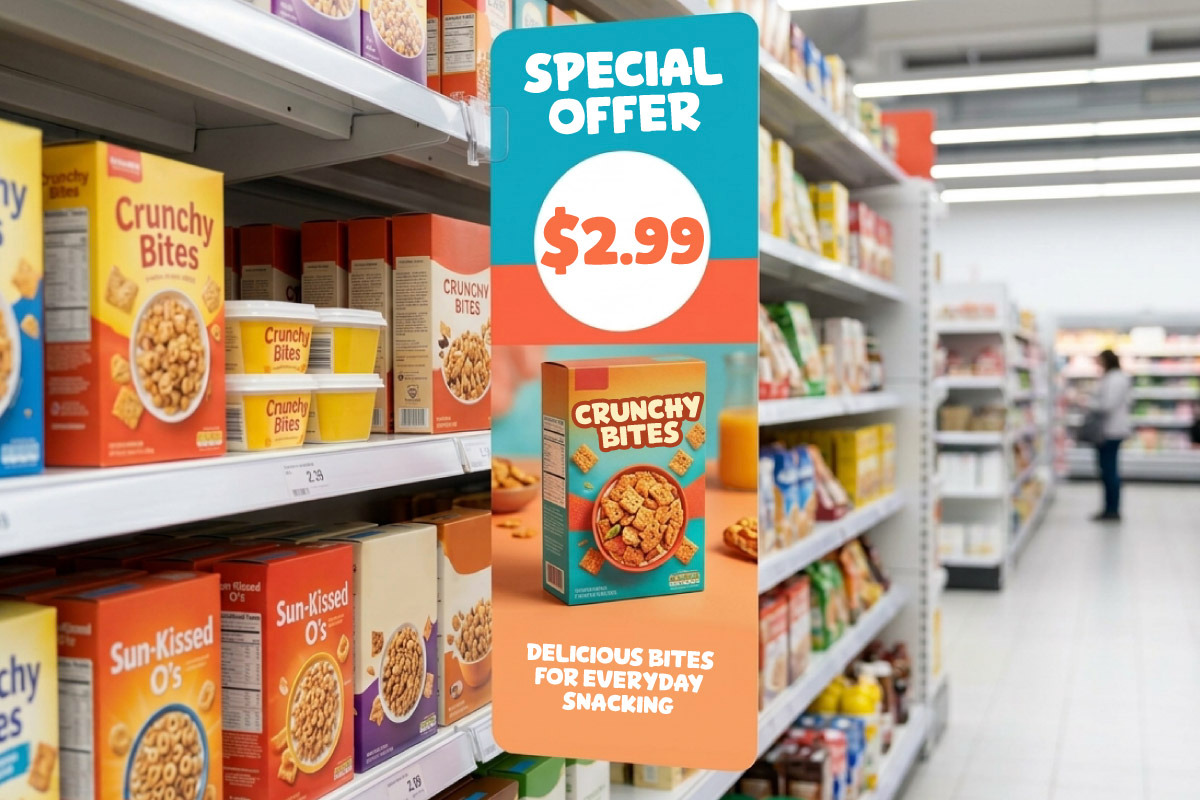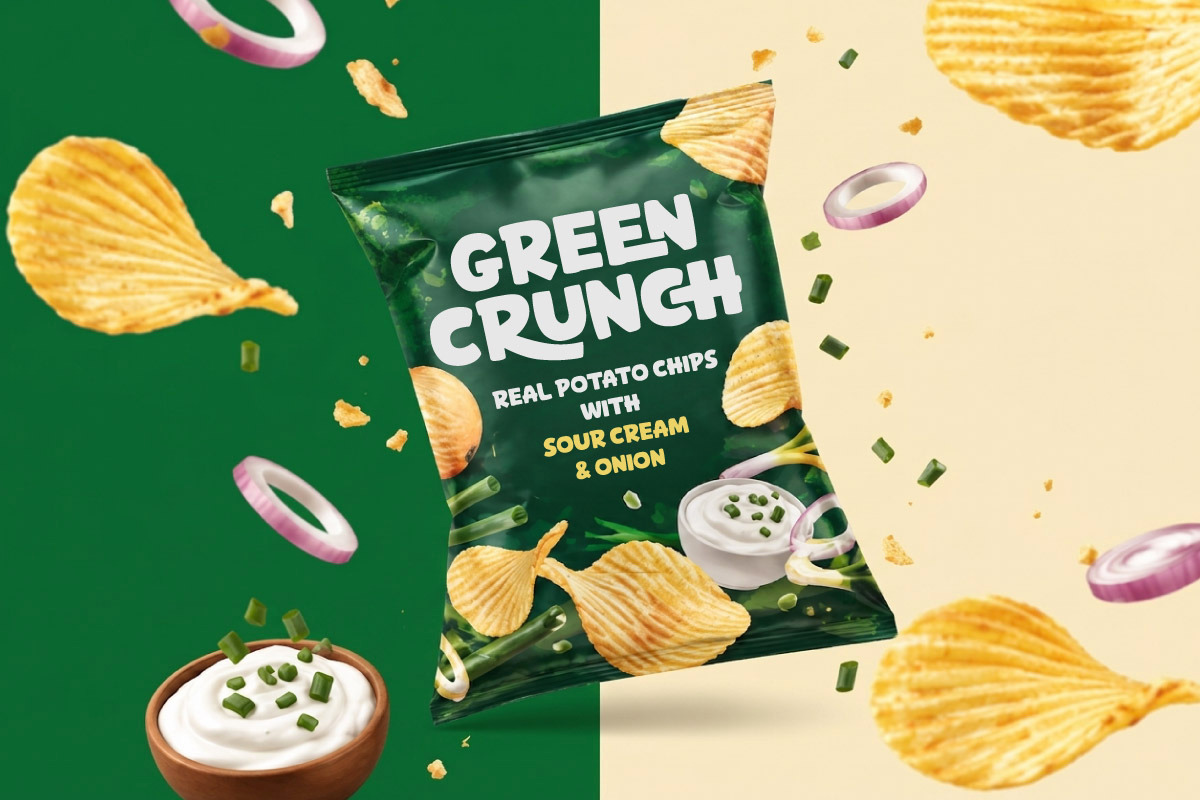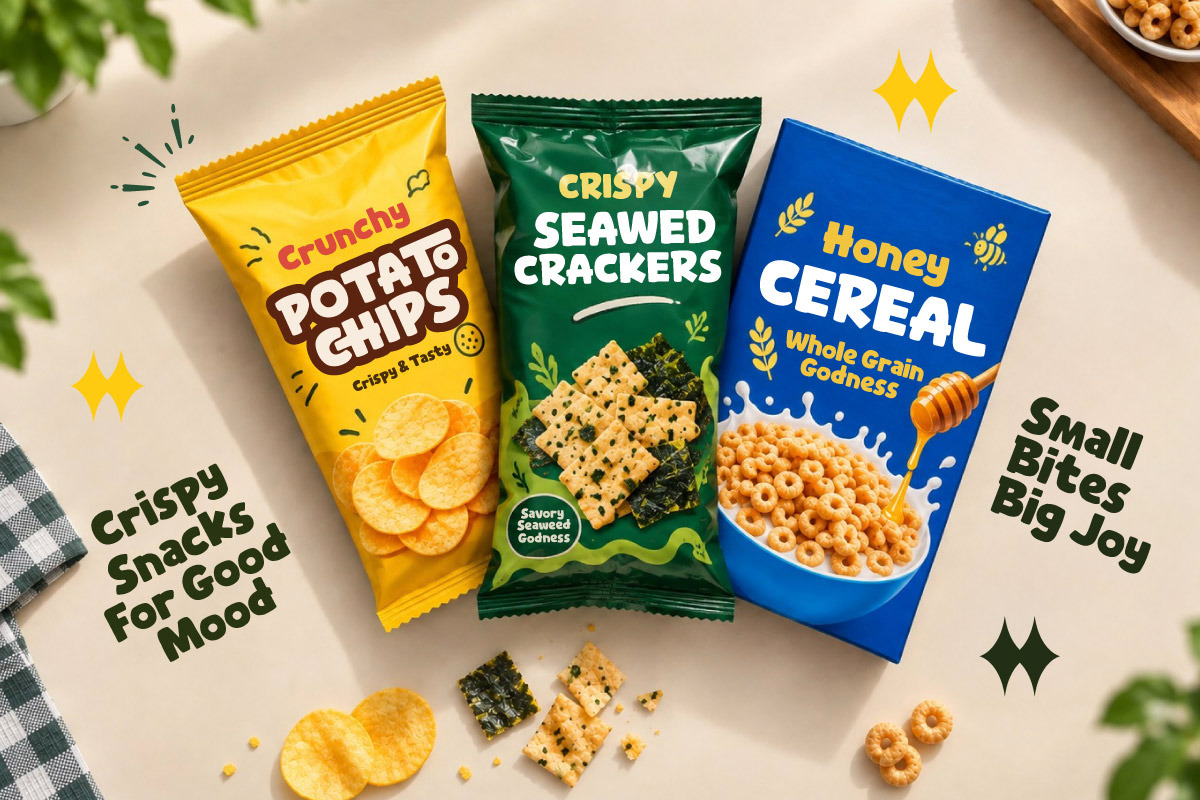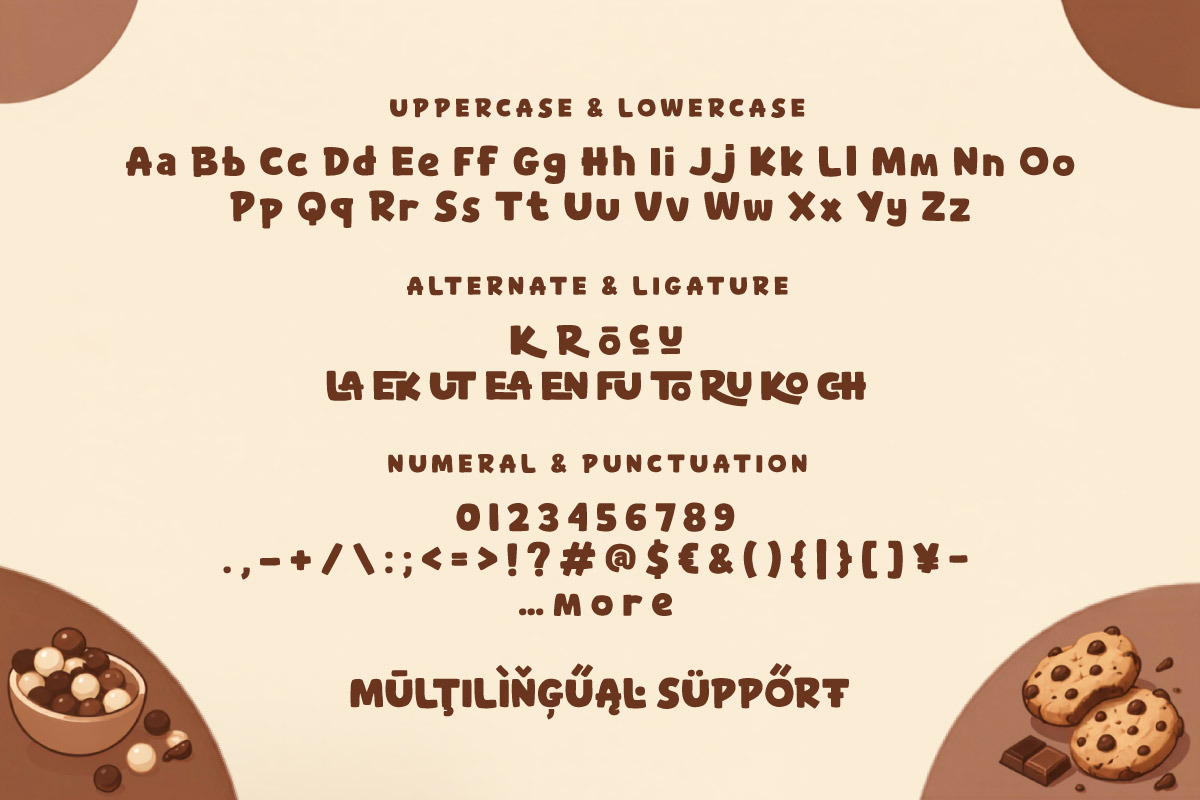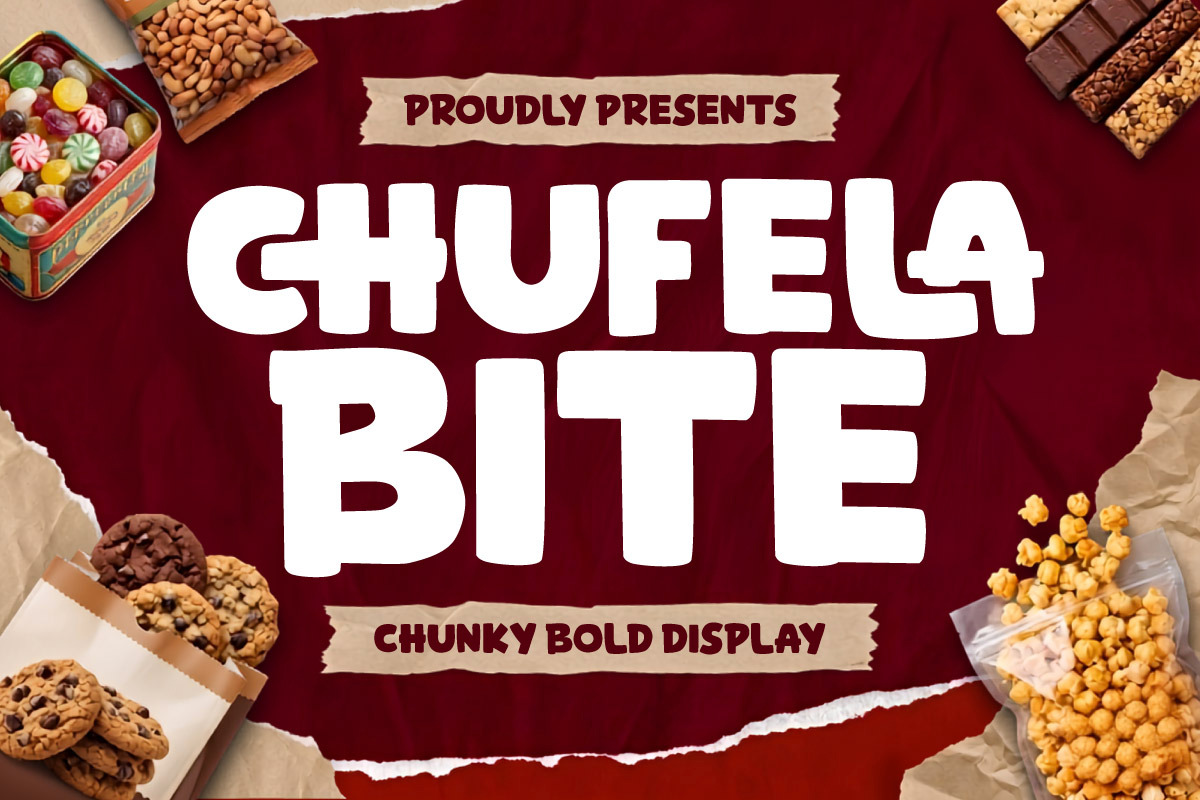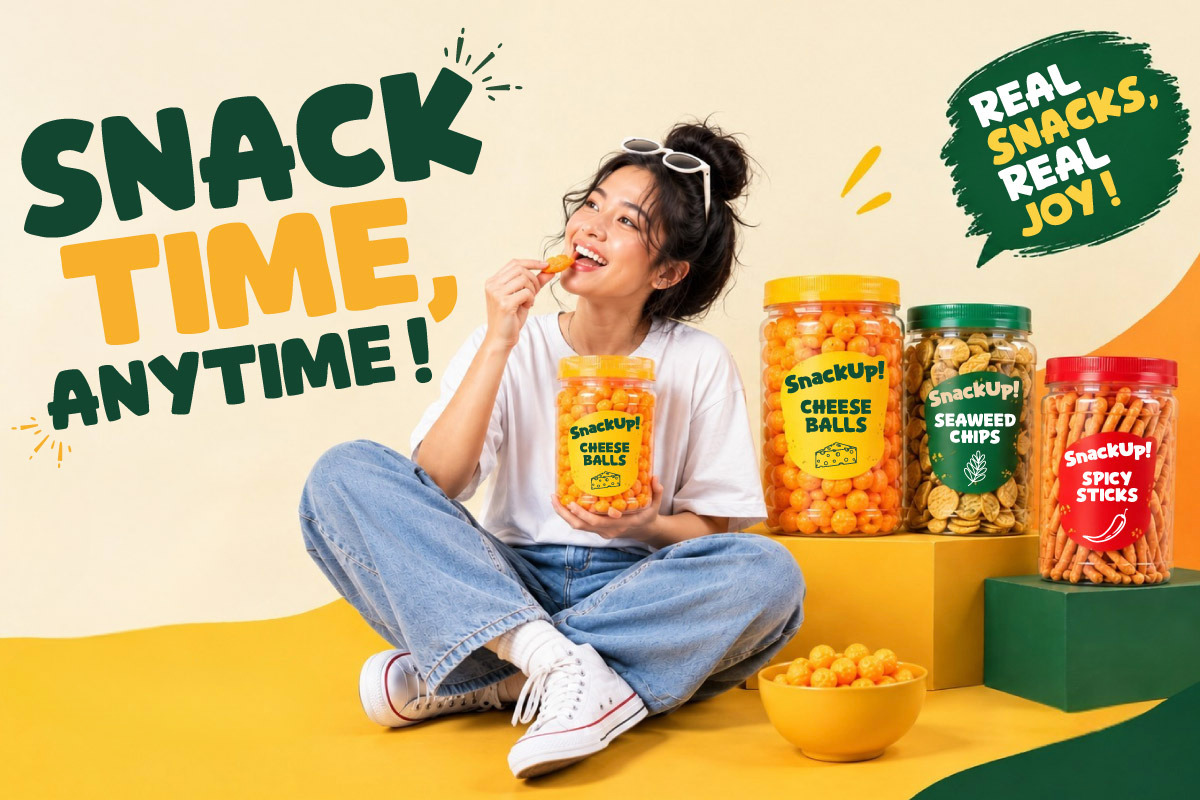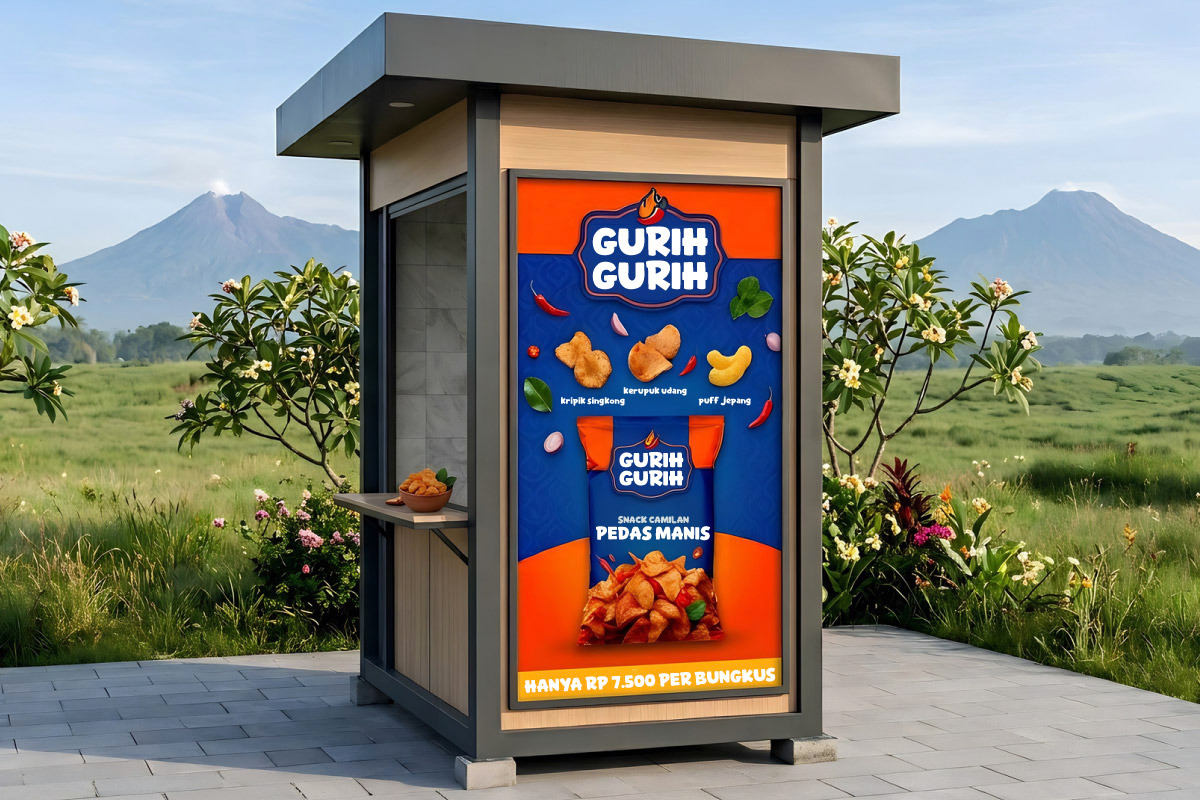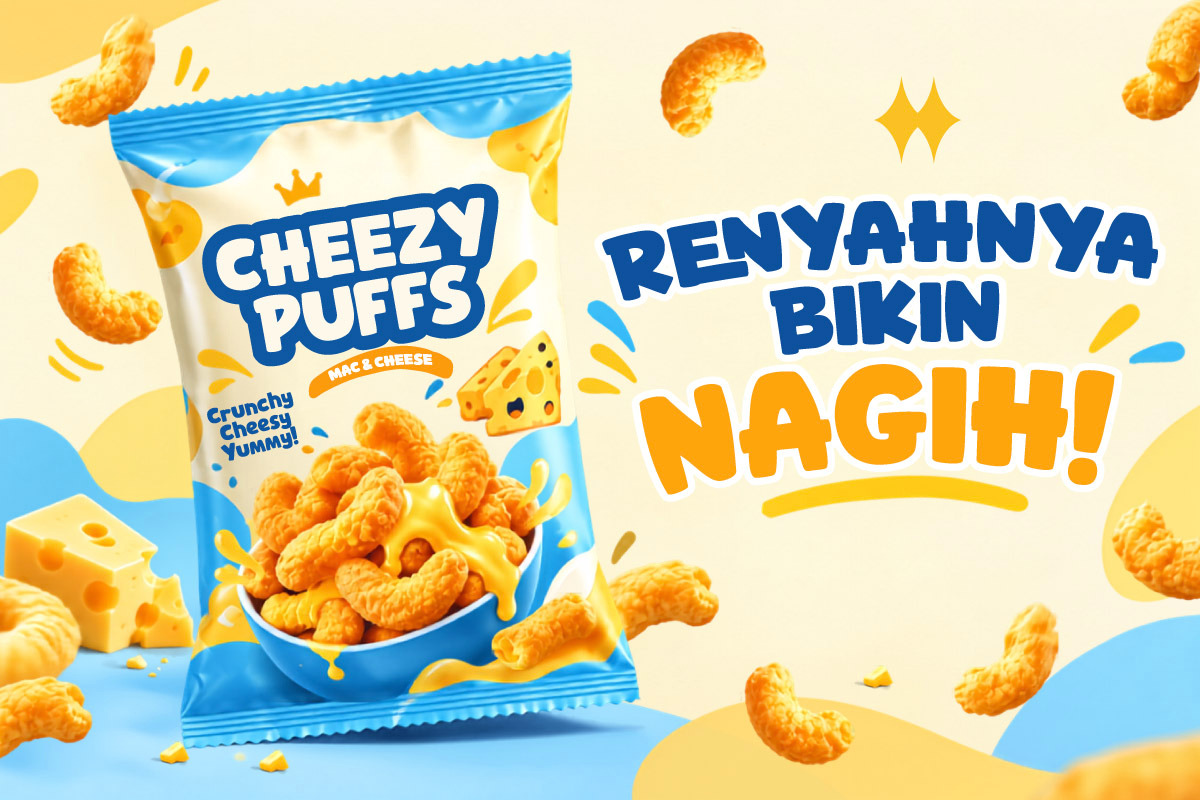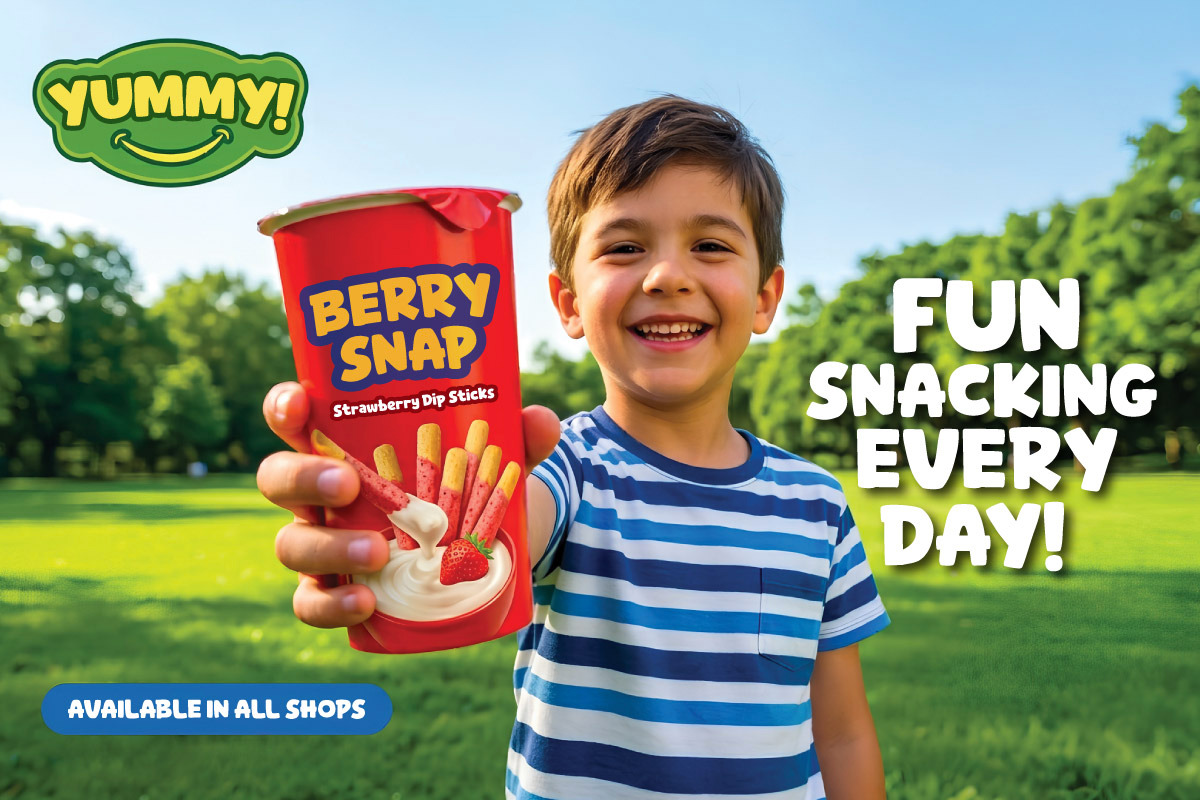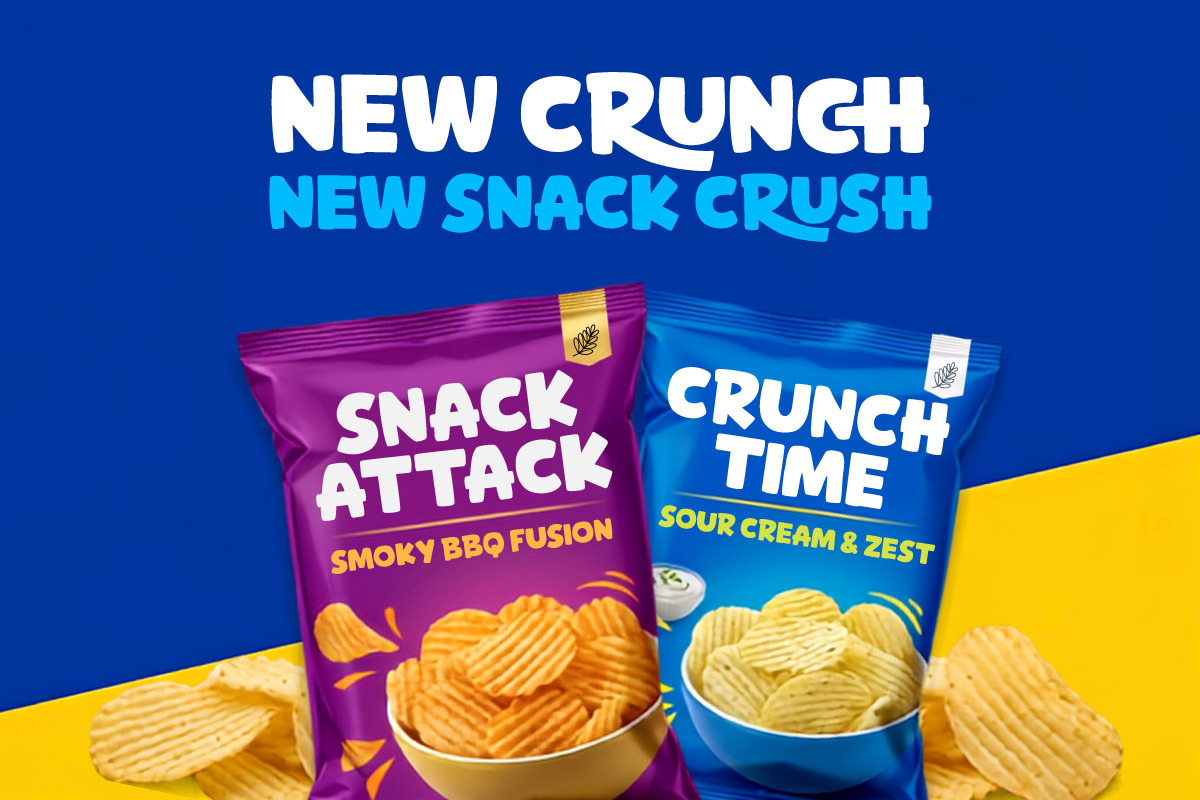
Chufela Bite - Chunky Bold Font
Chufela Bite steps up as a chunky bold display font packed with friendly energy, appetite appeal, and high-impact personality tailored for the competitive food, snack, and FMCG industries. Featuring thick, solid letterforms with rounded organic curves, this typeface delivers an instantly delicious visual impression that grabs attention effortlessly.
Engineered for maximum retail shelf impact, Chufela Bite excels across snack pouches, foil bags, cereal boxes, convenience food labels, and supermarket promotional signage. Its punchy, high-visibility weight ensures that product titles, flavor callouts, and advertising headlines stand out loud and clear in crowded shopping aisles.
Packed with uppercase and lowercase sets, numbers, punctuation, extended multilingual support, and a rich library of custom ligatures and alternate characters, Chufela Bite gives packaging designers and brand strategists complete creative freedom. Give your food products an appetizing, playful, and unforgettable brand identity with Chufela Bite.
- Multilingual Support: Fully supports 85+ languages, including:
Afrikaans, Albanian, Asu, Basque, Bemba, Bena, Breton, Catalan, Chiga, Cornish, Croatian, Czech, Danish, Dutch, Embu, English, Esperanto, Estonian, Filipino, Finnish, French, Friulian, Galician, Gusii, Hungarian, Indonesian, Irish, Italian, Kabuverdianu, Kalenjin, Kamba, Kikuyu, Kinyarwanda, Latvian, Lithuanian, Lower Sorbian, Luo, Luxembourgish, Luyia, Machame, Makhuwa-Meetto, Makonde, Malagasy, Maltese, Manx, Meru, Morisyen, North Ndebele, Norwegian Bokmål, Norwegian Nynorsk, Nyankole, Oromo, Polish, Portuguese, Quechua, Romanian, Romansh, Rombo, Rundi, Rwa, Samburu, Sango, Sangu, Scottish Gaelic, Sena, Serbian, Shambala, Shona, Slovak, Slovenian, Soga, Somali, Spanish, Swahili, Swedish, Swiss German, Taita, Teso, Turkish, Upper Sorbian, Uzbek (Latin), Volapük, Vunjo, Walser, Zulu.